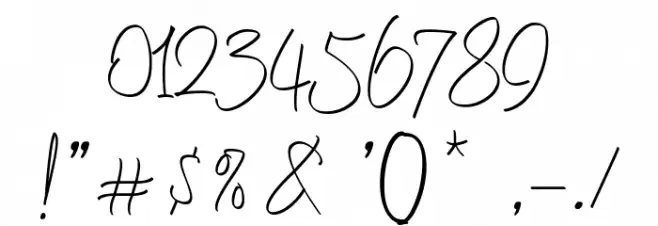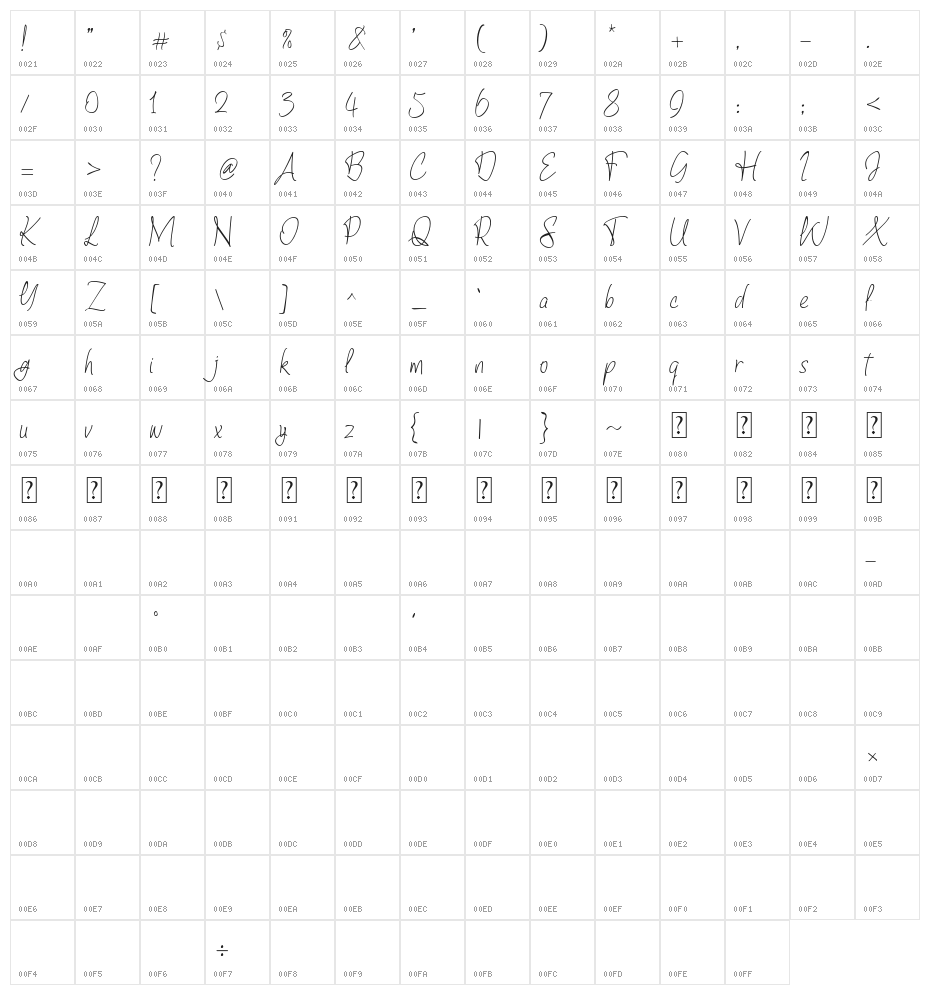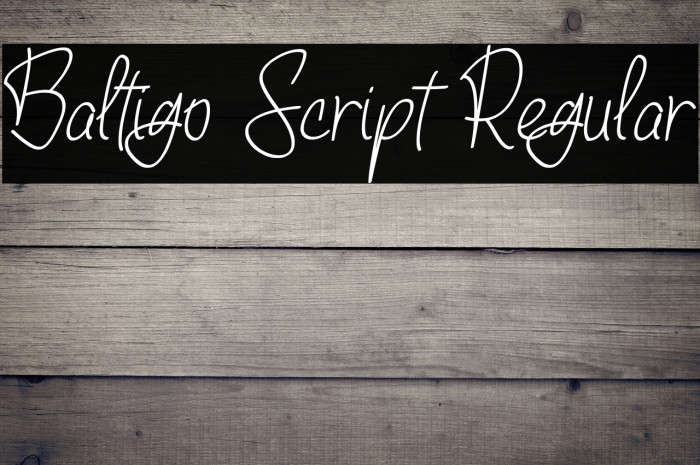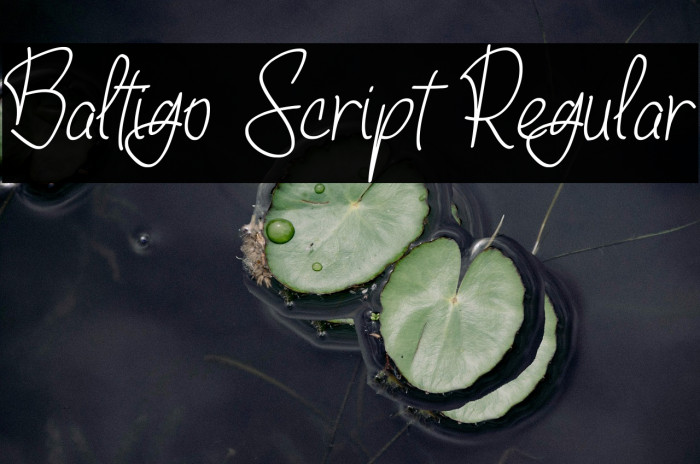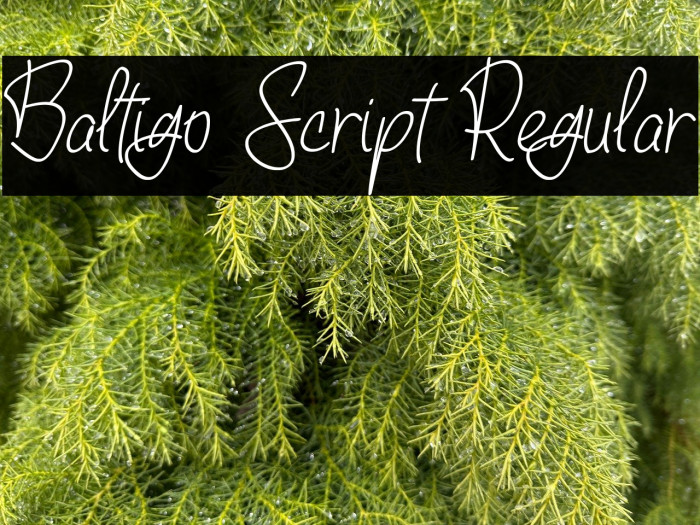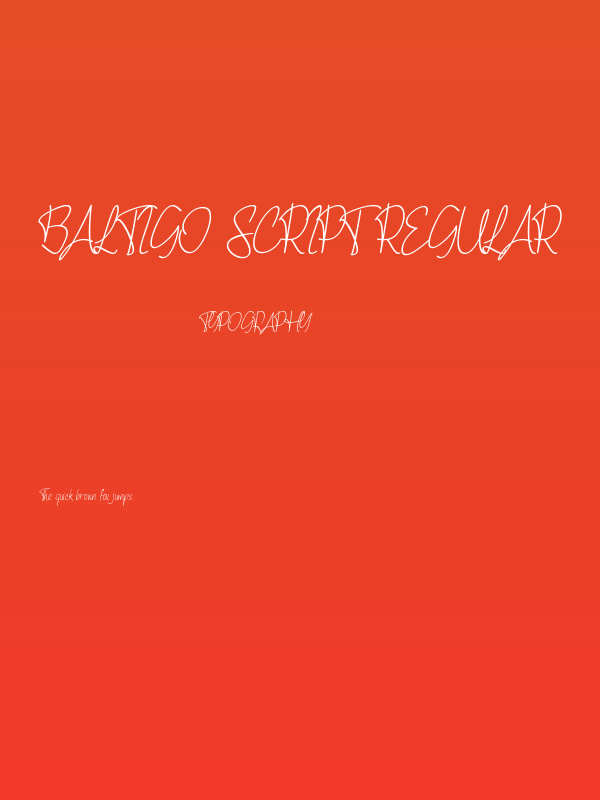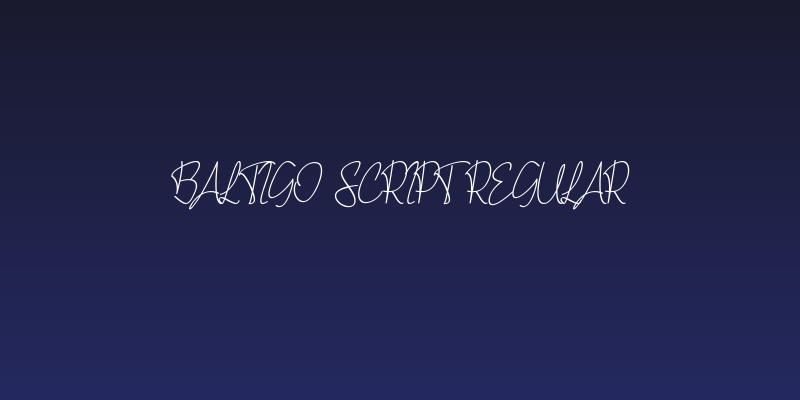
Baltigo Script Regular Font
Baltigo Script Regular Description
This font exudes a lively and elegant script style, characterized by its flowing, interconnected letterforms that mimic natural handwriting. The uppercase letters are tall and slender, with graceful loops and swashes that add a touch of sophistication. The lowercase letters maintain a consistent flow, enhancing readability while retaining an artistic flair. The numerals and special characters are crafted with the same attention to detail, ensuring a cohesive look across all text. This font's dynamic and fluid appearance makes it suitable for projects that require a personal and stylish touch.